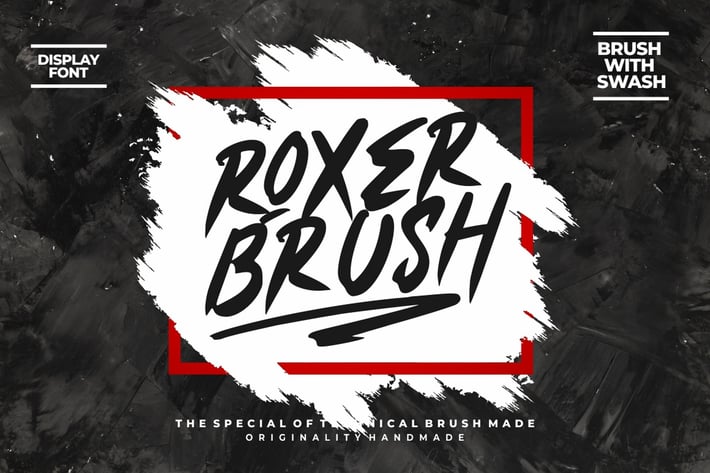
Roxer - Handbrush Font
Roxer Handbrush Typeface
Introducing, Roxer - A Handbrush Typeface.
This font made from my original handwriting using brush pen then making it digital. So you can create a stunning and natural hand lettering quickly and easily.
You can use this font for making an awesome lettering, apparel projects, signature, album cover, logo, branding, magazine, social media, & advertisements, but also works great for other projects.